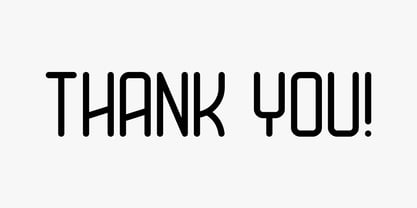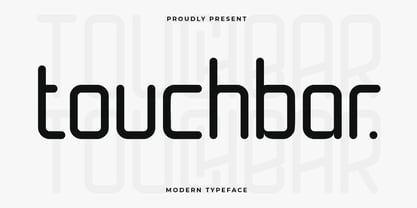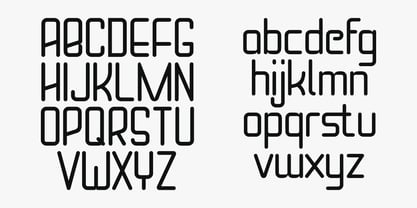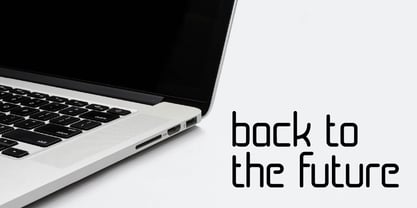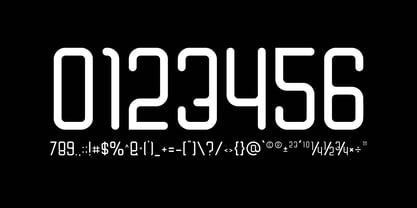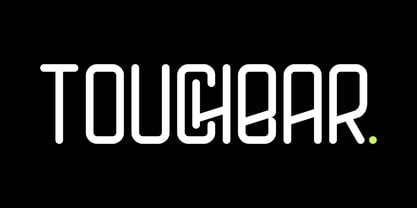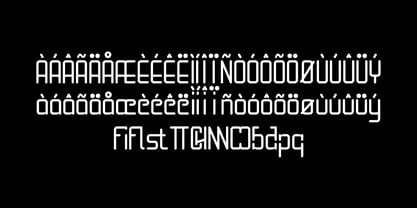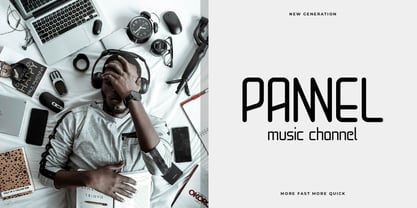
Touchbar
por Artiveko
La familia tipográfica Touchbar fue diseñada por Iwan Alwan y publicada por Artiveko. Touchbar contiene 2 estilos y opciones de paquete familiar. Más información sobre esta familia
Touchbar is a modern technology-inspired font designed for the future. With sleek lines, minimal curves, and geometric precision, Touchbar captures the essence of high-tech aesthetics. Every character is crafted to reflect innovation and clarity, making it ideal for UI design, tech branding, app interfaces, digital posters, and anything that calls for a futuristic vibe.
This typeface features clean sans-serif construction, enriched with subtle details that suggest movement and energy — like the glow of a touchscreen or the hum of a modern device. Touchbar supports multiple languages, and includes a set of alternates and ligatures to expand your creative control. Whether you’re building a brand for a startup, designing an app dashboard, or crafting a sci-fi-inspired visual, Touchbar delivers a sharp, professional tone with a touch of digital elegance. It’s not just a font — it’s your gateway to the future.
Diseñadores: Iwan Alwan
Fundición: Artiveko